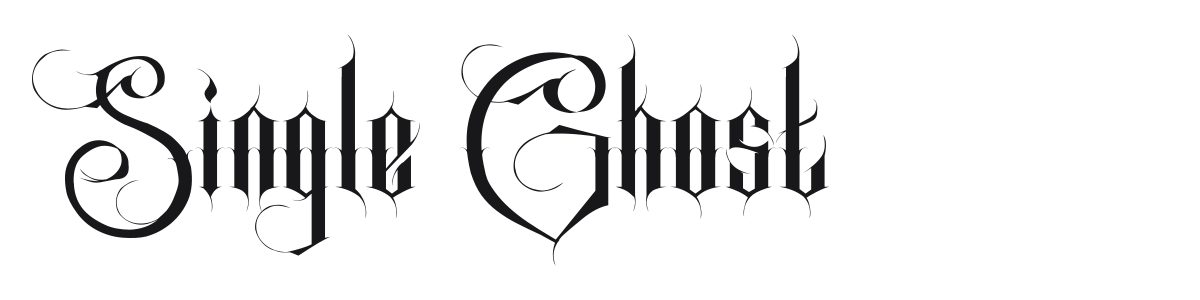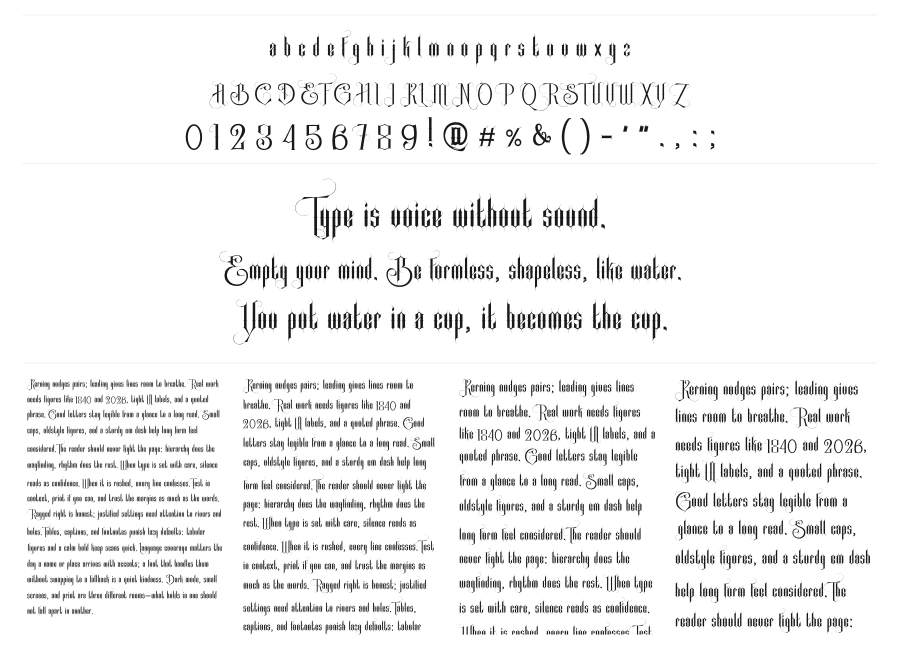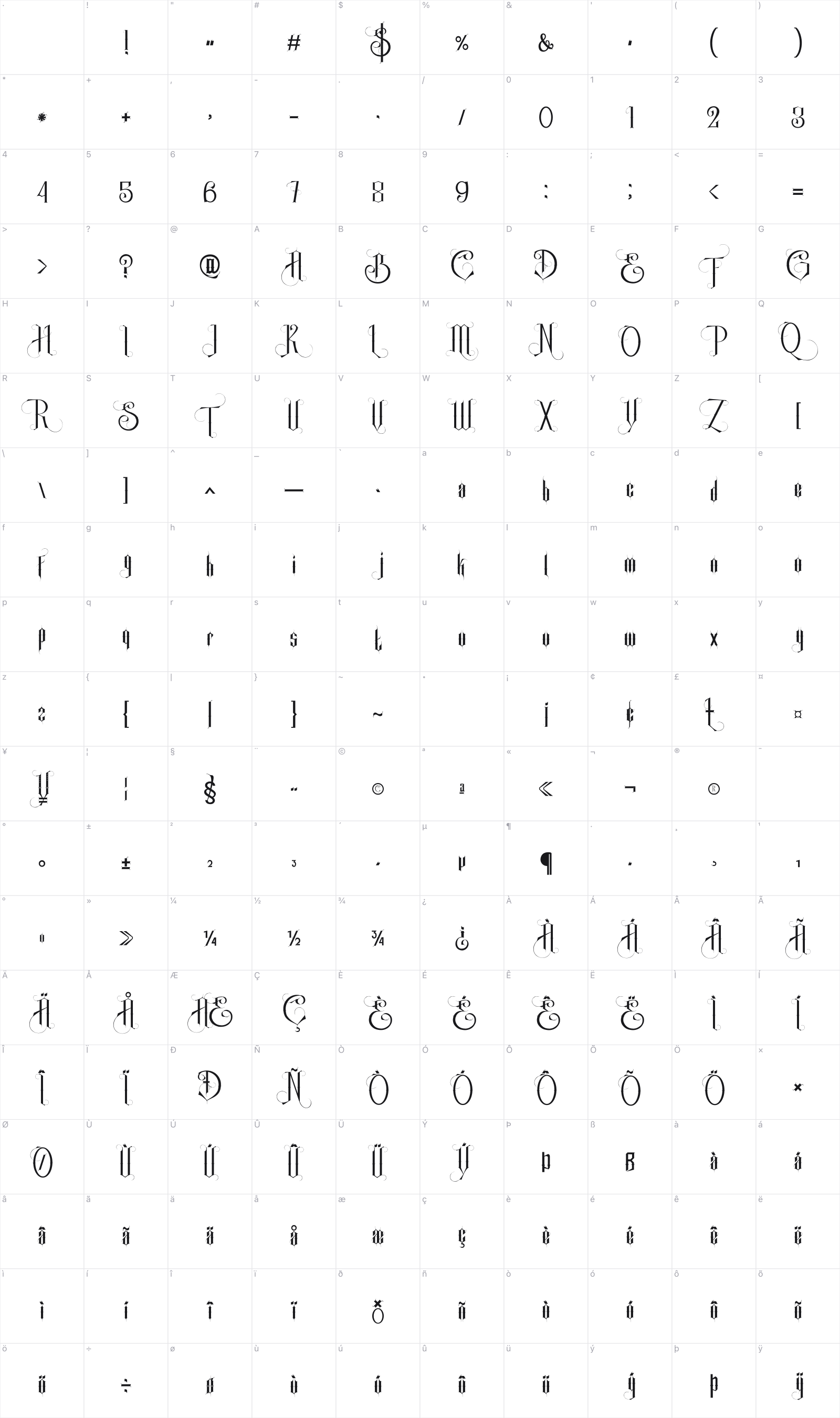
Single Ghost
Single Ghost is a condensed gothic blackletter with extreme stroke contrast and elaborate decorative swashes that curl and spike beyond the natural cap and baseline. The design pulls from medieval calligraphic tradition and channels it through a distinctly modern dark-culture lens. Strong at large sizes for logos, album covers, or anything that needs a heavy dose of gothic drama.